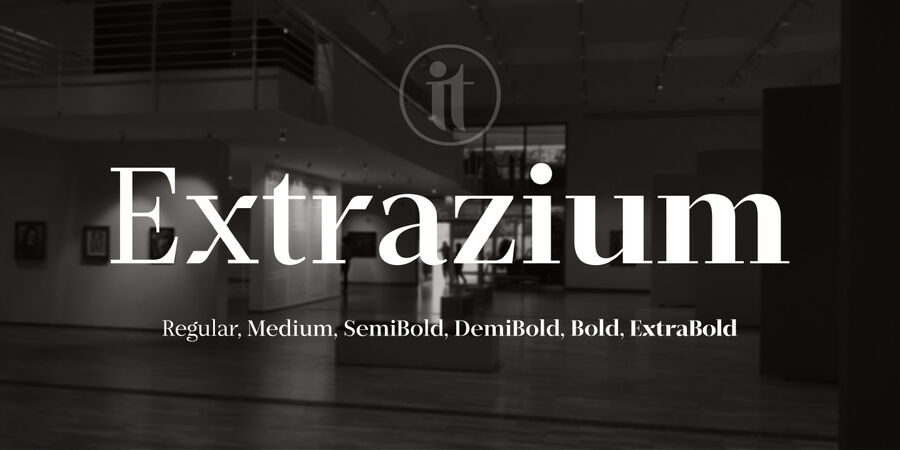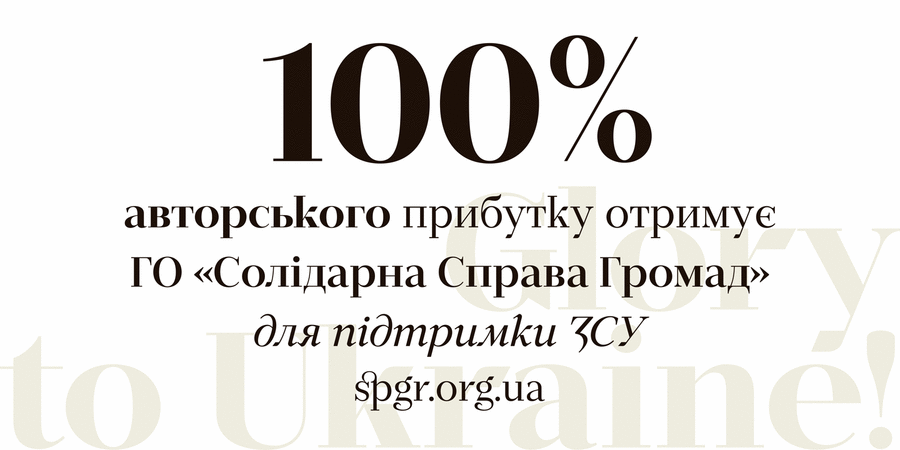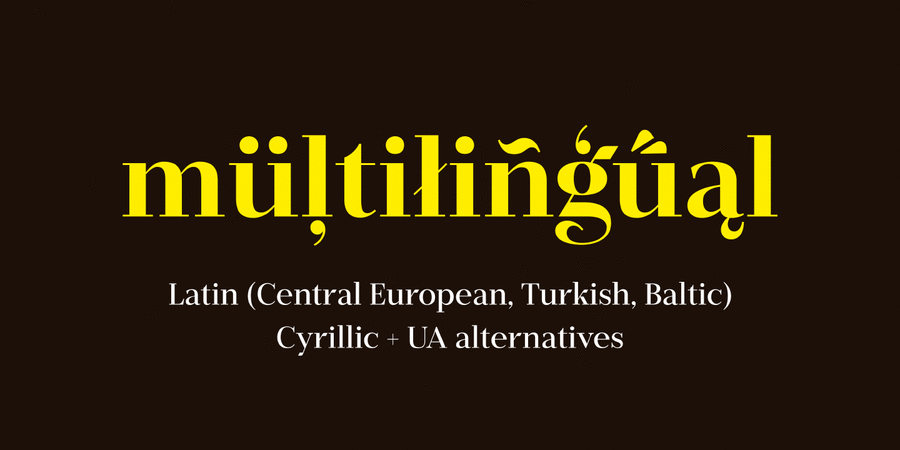
About IT ExtraziumElegant and brutal text and display serif typeface with a strong contrast, intended for use in headings, logos, initials and also in small size (9-10, Regular). IT Extrazium supports many languages on Cyrillic and Latin, has Ukrainian Cyrillic, ligatures, alternative glyphs. The typeface was designed by Tetiana Ivanenko in 2019-2023.
Associations for font family IT ExtraziumTypeface personality and character:
Glamorous, fashionable, jewelry, artistic, cutting, crisp, original, distinctive, proud, interesting, rich, expensive, serious, flat, technically, modern, static, cultural, educated, stable, solid, sharp, dynamic, luxurious, daring, important, sexy, thorny, authoritative, formidable, convincing, dramatic, motivating, notable, bright, active, splashy, reputable, heavy, dense